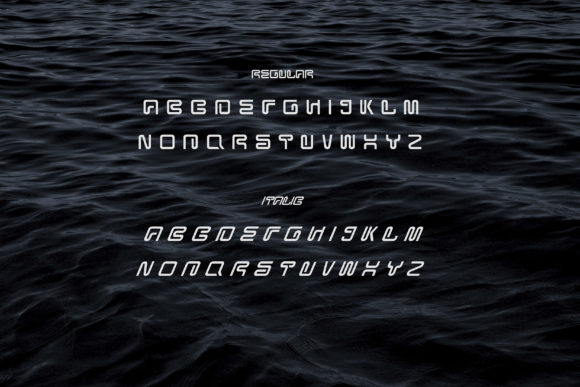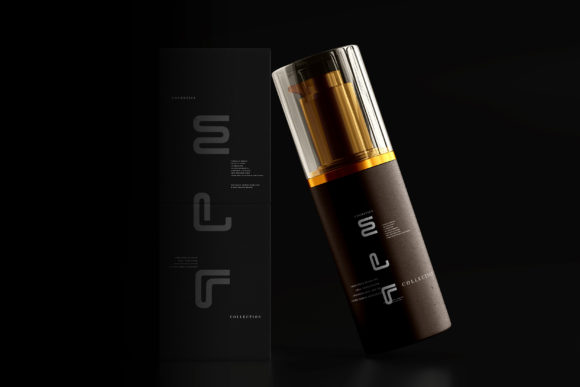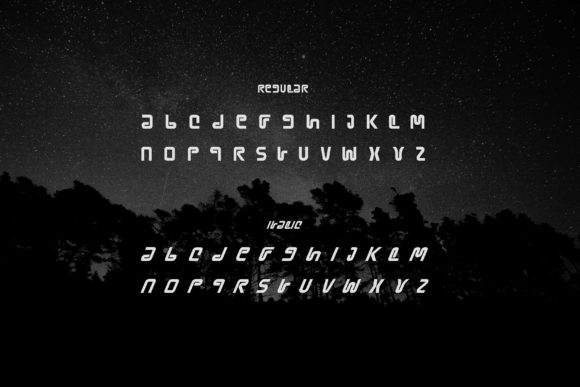
Introducing Elf Font: The Modern and Cool Display Font for Your Creative Projects
In the world of typography, fonts play a crucial role in conveying the tone and personality of a brand or design. With the vast array of fonts available, it can be challenging to find the perfect one that stands out from the rest. However, if you’re looking for a modern and cool display font that adds a unique, futuristic touch to your designs, look no further than Elf Font.
What is Elf Font?
Elf Font is a contemporary display font designed to make a statement. Its sleek and futuristic design makes it ideal for a wide range of creative projects, from web designs and business cards to posters, flyers, and more. This font is perfect for designers and crafters who want to add a touch of modernity and sophistication to their work.
Key Features of Elf Font
- Modern and Cool Design: Elf Font boasts a unique and futuristic design that is sure to grab attention.
- Highly Versatile: This font is suitable for a wide range of creative projects, from digital designs to print materials.
- Easily Readable: Despite its futuristic design, Elf Font is highly legible, making it perfect for body text and headlines.
- Customizable: With its wide range of font styles and weights, Elf Font can be easily customized to fit your design needs.
Uses of Elf Font
Elf Font is an incredibly versatile font that can be used in a variety of creative projects. Here are some of the most popular uses of this font:
- Web Design: Use Elf Font to create stunning website headers, titles, and descriptions that are sure to grab attention.
- Business Cards: Add a touch of modernity and sophistication to your business cards with Elf Font.
- Posters and Flyers: Use Elf Font to create eye-catching posters and flyers that stand out from the crowd.
- Social Media Graphics: Elf Font is perfect for creating social media graphics, such as Facebook and Twitter headers, that require a unique and futuristic touch.
Benefits of Using Elf Font
Using Elf Font in your creative projects offers a range of benefits, including:
- Unique and Memorable: Elf Font’s futuristic design makes it a unique and memorable font that will help your designs stand out.
- Time-Saving: With its highly legible design, Elf Font saves you time and effort in creating stunning designs.
Tips for Using Elf Font
Here are some tips for using Elf Font in your creative projects:
- Pair with Other Fonts: Experiment with pairing Elf Font with other fonts to create stunning font combinations.
- Use in Headlines and Titles: Use Elf Font in headlines and titles to add a touch of modernity and sophistication.
- Experiment with Colors: Try out different colors and gradients to add depth and interest to your designs.
In conclusion, Elf Font is a modern and cool display font that is perfect for designers and crafters who want to add a unique, futuristic touch to their creative projects. With its highly versatile design, wide range of font styles and weights, and easily readable design, Elf Font is an excellent choice for a wide range of applications. So why wait? Download Elf Font today and take your designs to the next level!